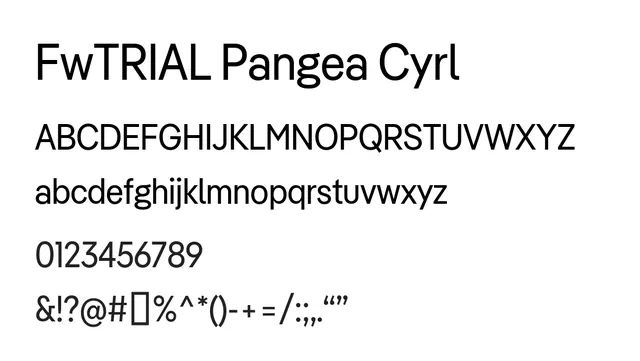
FwTRIAL Pangea Cyrl
FwTRIAL Pangea Cyrl, modern, clean
A versatile geometric sans-serif with five weights and full Cyrillic support, offering consistent modernism across multilingual applications.
Perfect for comprehensive multilingual design systems serving Eastern European and Russian markets. Provides consistent geometric aesthetics across five weights in both Latin and Cyrillic scripts.
Pairs well with Inter or Roboto for complementary geometric sans variations, or with a serif like Lora for editorial contrast.